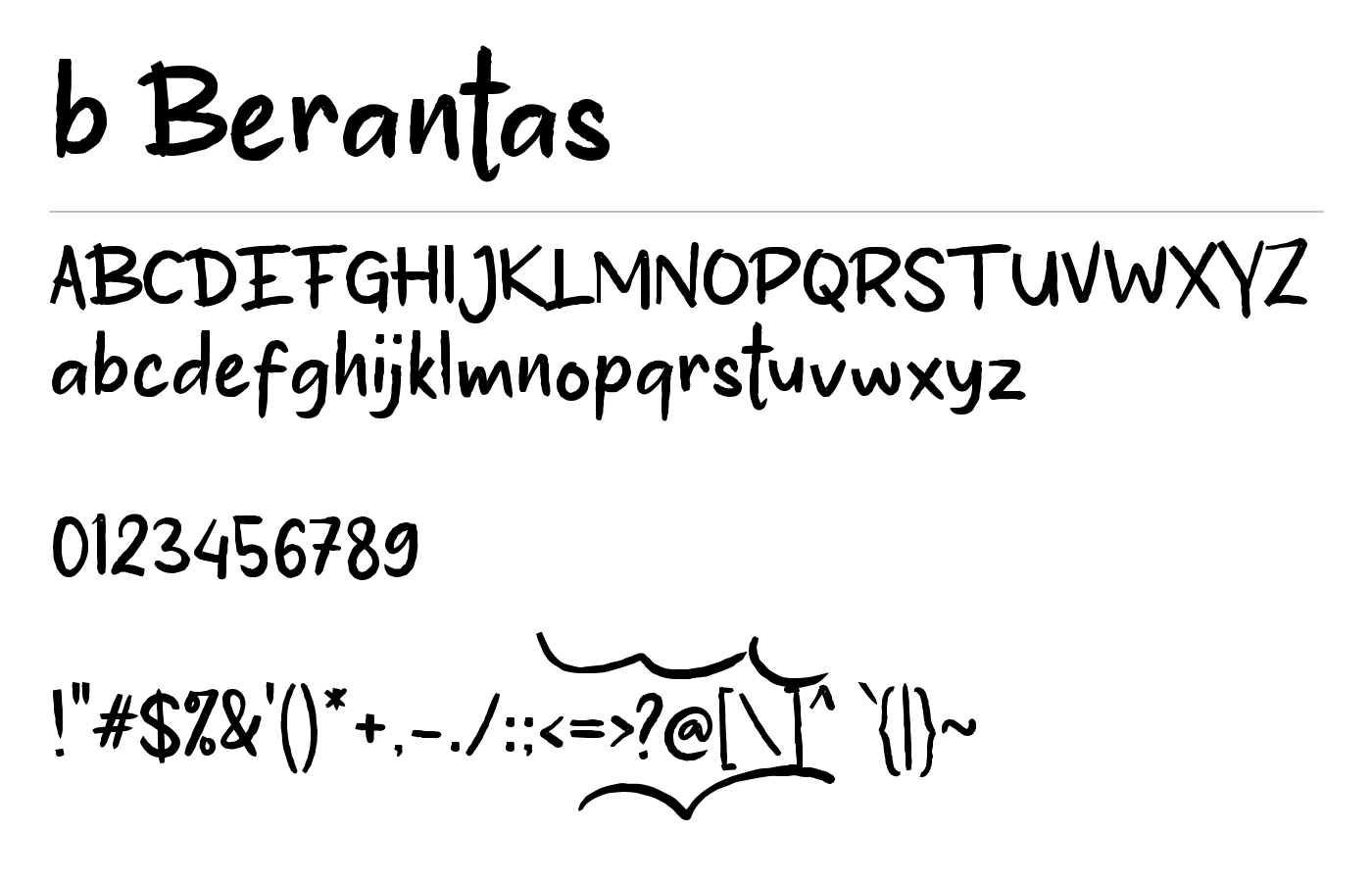
Berantas is a playful, casual handwritten font that mimics natural brush strokes with its slightly uneven, textured lines and irregular shapes. Its lively character makes it perfect for creative projects, informal branding, and fun packaging where a friendly, approachable vibe is desired. This font works well in headlines and logos that want to convey warmth and personality without feeling too formal.
b Berantas Font